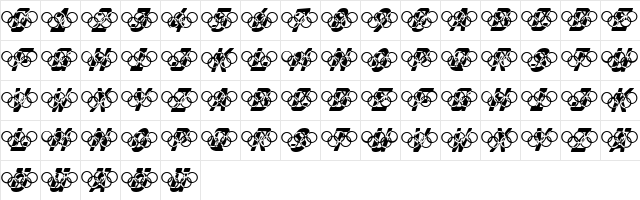
Olympia 2000 Regular
Design Context for Olympia 2000 Typeface
Olympia 2000 is a composed and adaptable typeface that performs quietly and consistently across a wide range of design contexts.